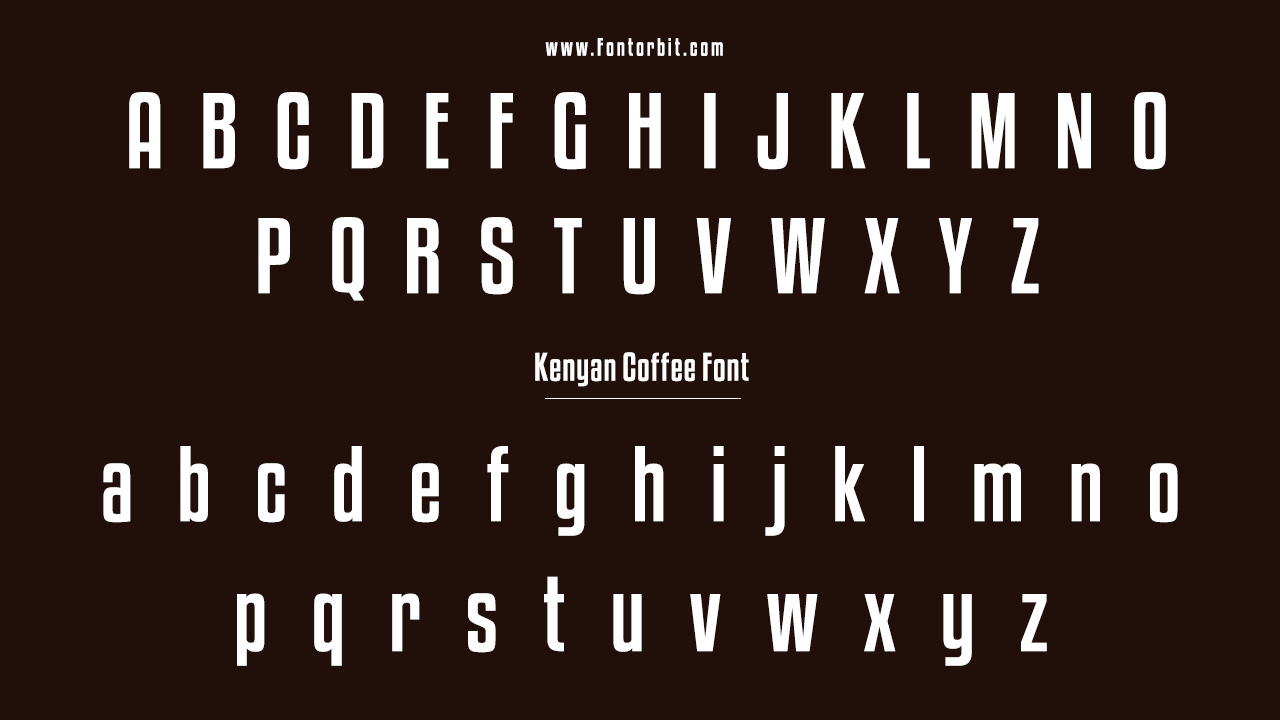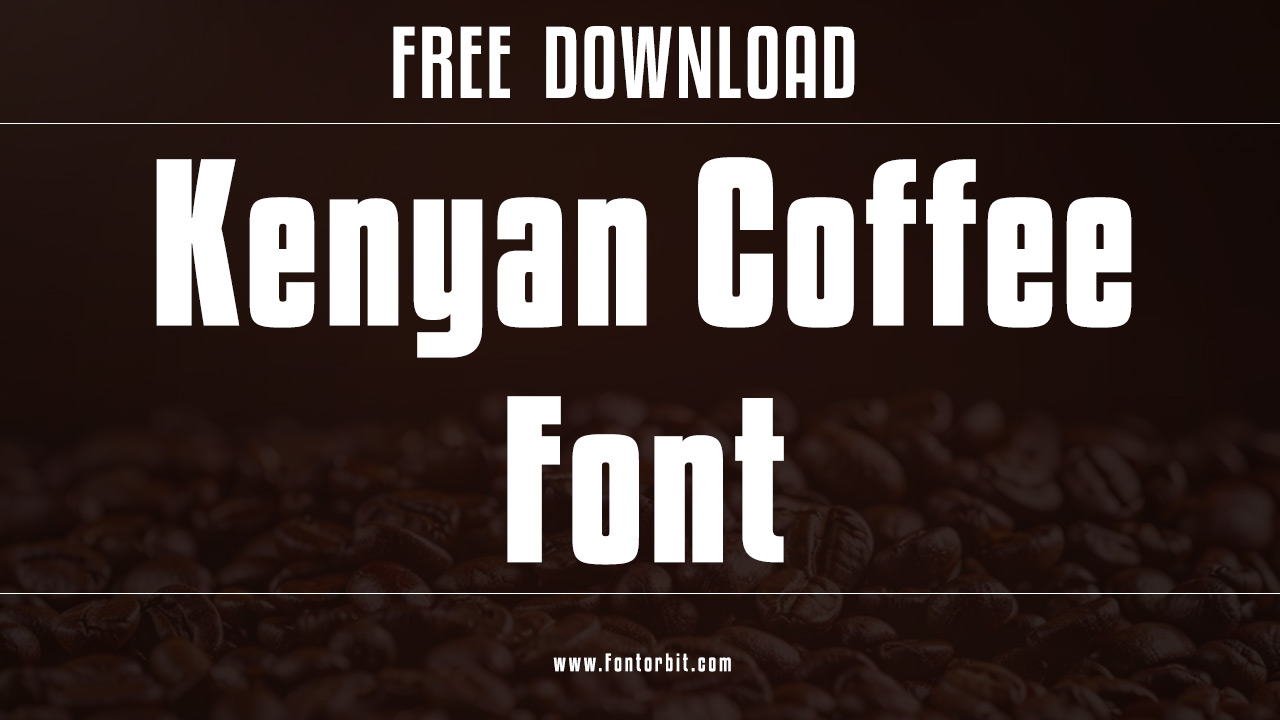
Kenyan Coffee is a thin, blocky display font designed by Ray Larabie in the style of 1960s headline fonts. Its industrial shapes and innovative design choices make this sans-serif font family a distinctive option for anyone seeking a vintage yet modern look.
The Kenyan Coffee font family offers a versatile range of styles, suitable for different design needs. Each variant is 751 characters long, ensuring full support for basic Latin characters.
- Kenyan Coffee UltraLight
- Kenyan Coffee UltraLight Italic
- Kenyan Coffee ExtraLight
- Kenyan Coffee ExtraLight Italic
- Kenyan Coffee Light
- Kenyan Coffee Light Italic
- Kenyan Coffee Book
- Kenyan Coffee Book Italic
- Kenyan Coffee Regular
- Kenyan Coffee Italic
- Kenyan Coffee SemiBold
- Kenyan Coffee SemiBold Italic
- Kenyan Coffee Bold
- Kenyan Coffee Bold Italic
Notable Uses Of Kenyan Coffee
Kenyan Coffee has a unique retro-futuristic aesthetic, which makes it ideal for vintage branding, tech-oriented designs, and modern editorial layouts. It has been used in various creative projects for a minimalistic yet striking look, from event posters to magazine headlines and product packaging.
Kenyan Coffee works well in any design requiring a vintage 1960s feel with modern precision. Its blocky, thin structure is perfect for:
- Headlines and banners
- Branding and logos
- Editorial designs for magazines
- Tech-related projects
- Event posters
Kenyan Coffee is an excellent choice for those looking for a font that combines the industrial aesthetic of the 1960s with modern typographic innovation. Its bold yet thin structure makes it versatile for various creative and commercial applications.
4.What Type Of Font Is Kenyan Coffee?
It is a sans-serif display font.
5.What Makes Kenyan Coffee Different From Other Sans-Serif Fonts?
Its thin, blocky design inspired by 1960s fonts makes it stand out.
8.Does Kenyan Coffee Come With Italic Options?
Yes, it comes with both regular italic and bold italic options.
9.Is Kenyan Coffee Suitable For Small Text?
It is best used in display settings rather than for small body text.